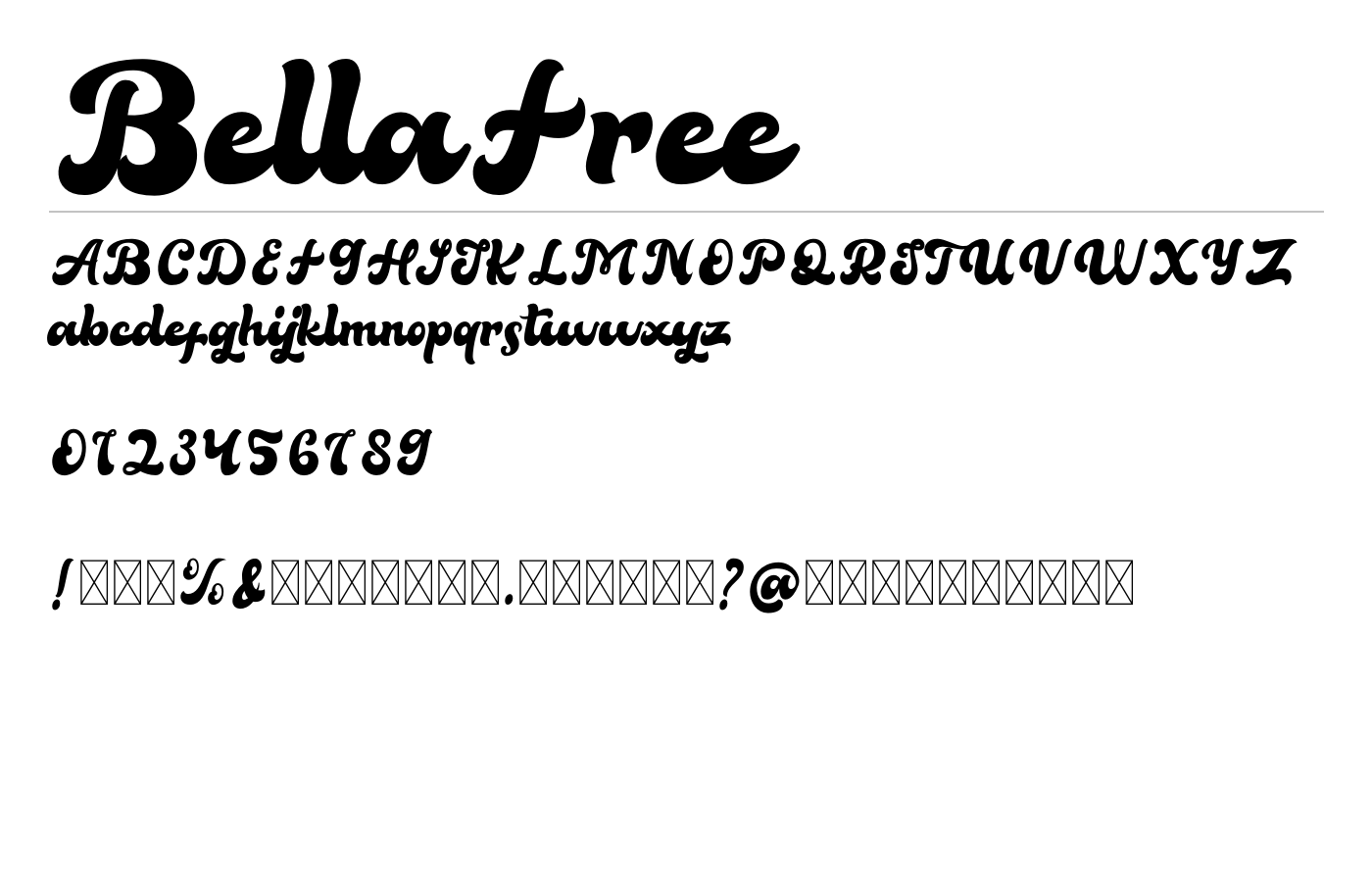
BellaFree is a bold, playful script font with thick, rounded strokes that create a friendly and inviting feel. Its charming, handwritten style makes it ideal for casual branding, packaging, and headlines where a warm, approachable look is desired. This font works well for designs that want to convey personality and creativity without sacrificing readability.
BellaFree Font
About BellaFree Font
| Font family | BellaFree Font |
| Designer | Agung Rohmat |